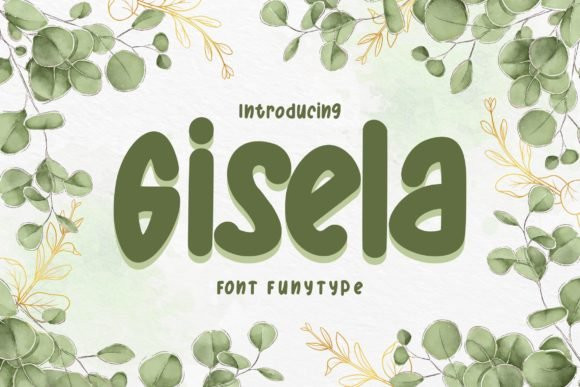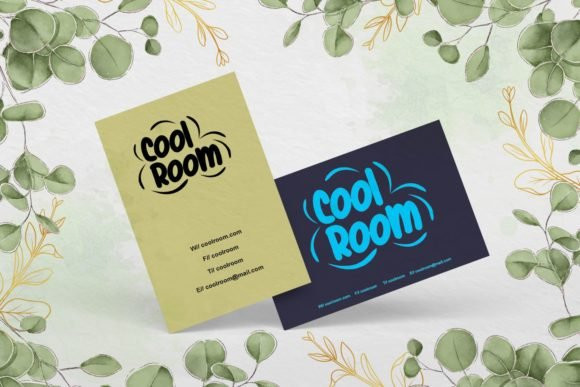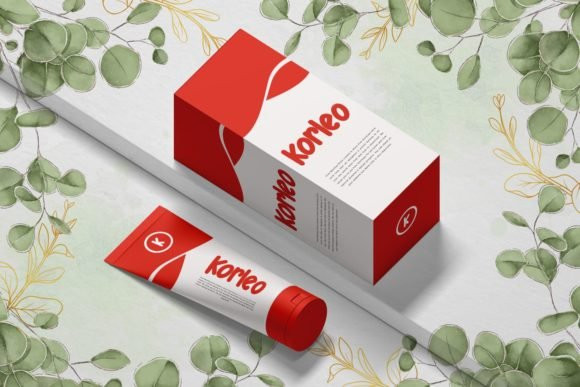
Gisela Font
Gisela is a brushed and casual display font. It is suitable for creating any branding, product packaging, invitation, quote, t-shirt, label, poster, logo that you wish to develop.